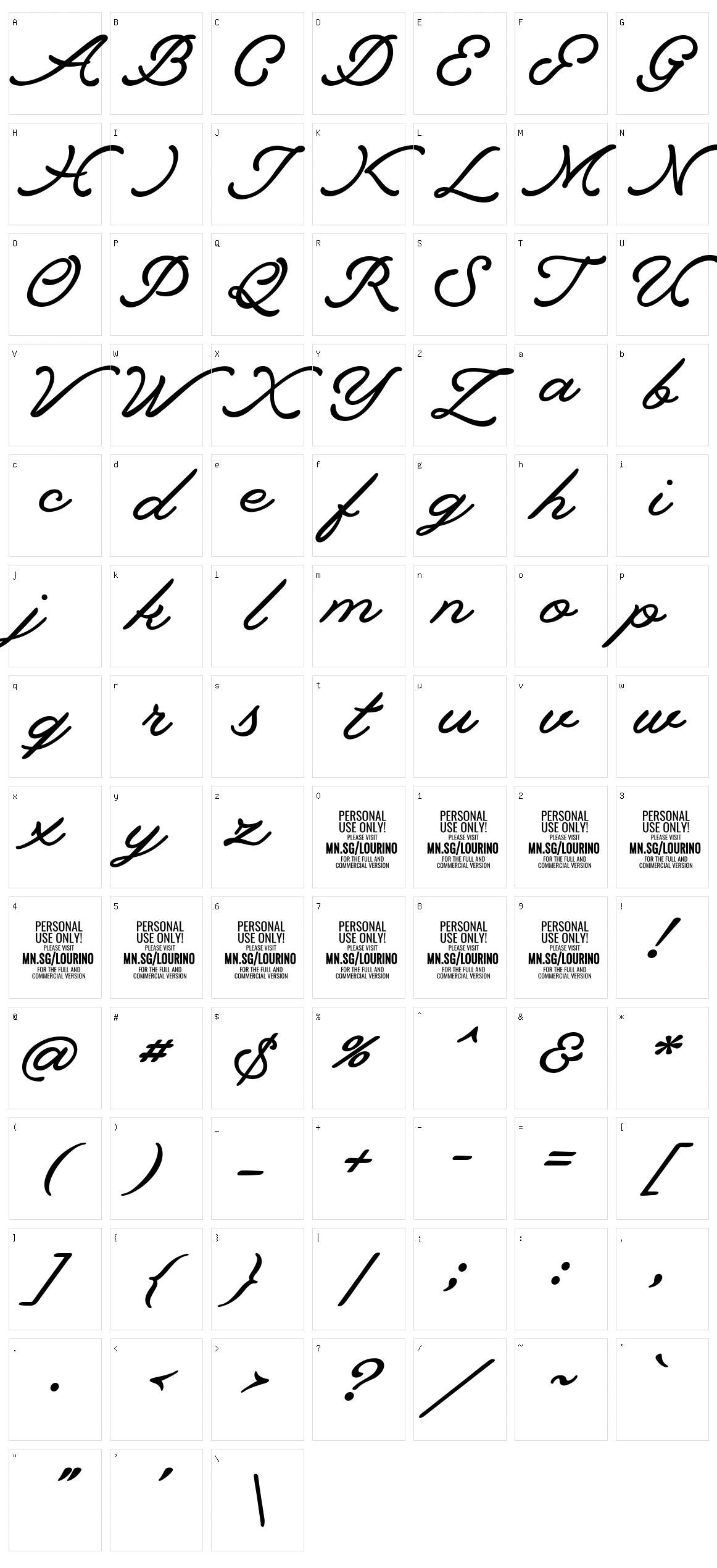
Lourino is a flowing script typeface, drawn by Måns Grebäck during 2018
It is a high-quality font with cute letter shapes and large, round capitals.
The font has an extensive set of characters and supports all Latin based European languages.